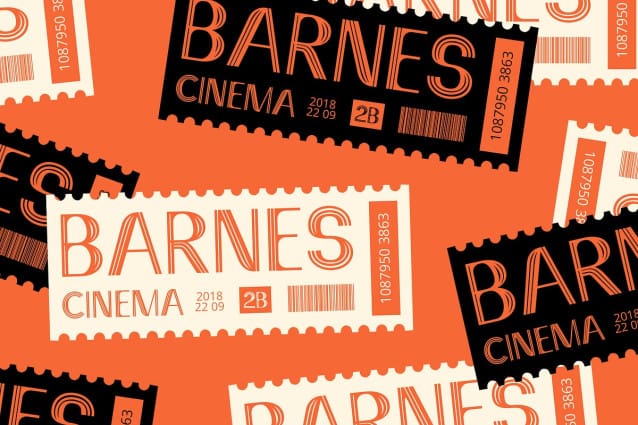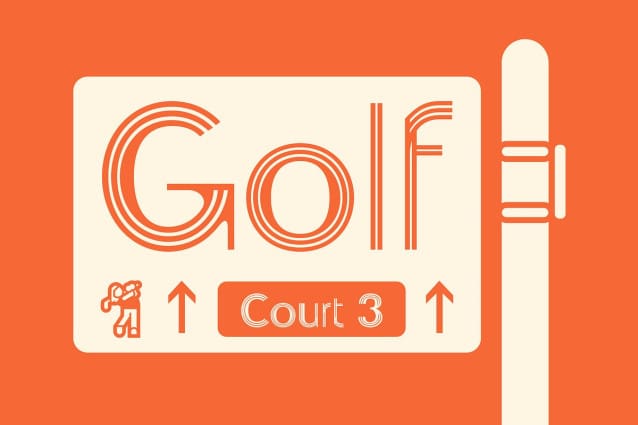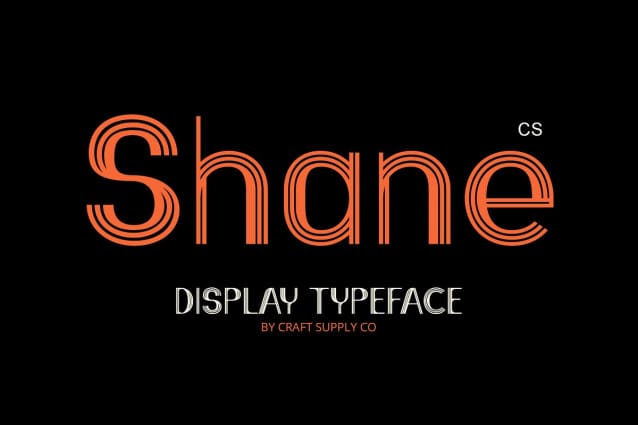
CS Shane Font
CS Shane Font – Stripe Font is a display font crafted from parallel stripe patterns that create a strong and dynamic visual impression. The lines, which can extend both vertically and horizontally, provide a distinctive graphic look. The stripe effect adds texture and rhythm to the design, making any project more engaging and visually captivating.
Versatility in Design Whether you’re going for a modern, futuristic, or retro aesthetic, the CS Shane Stripe Font adapts seamlessly. The thickness, length, and spacing of the stripes can vary, allowing for designs ranging from minimalistic to more complex, decorative styles. This flexibility makes it ideal for a wide range of projects, including titles, posters, logos, and branding efforts.
Bold and Artistic Appeal With its clear, structured line elements, CS Shane Stripe Font offers a bold, artistic feel that makes the text stand out. The visual impact of this font ensures that your designs are not only eye-catching but also memorable, perfect for projects that demand attention and creativity.